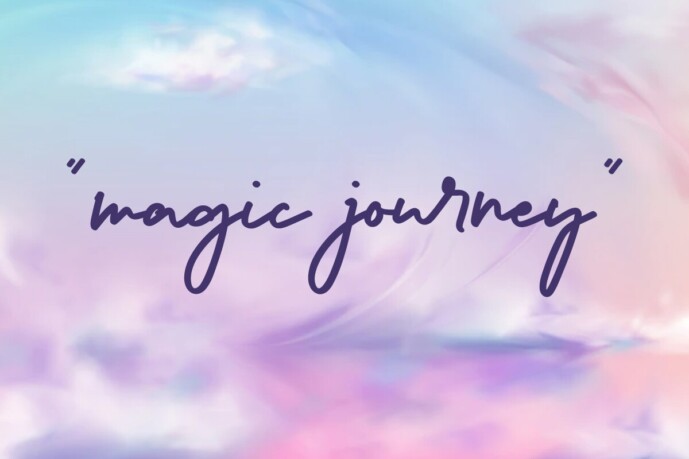
Magic Journey Font
Magic Journey is a delicate modern and stylish handwriting font with a simple hand scripted style. It will bring beauty to your business, such as architect, bakery, cafe, cooking class, design interior, event organizer, fashion, florist, furniture, graphic design, handicraft, photography, printing, publishing, real estate, restaurant, retail, skincare, spa salon, writer, and many more.